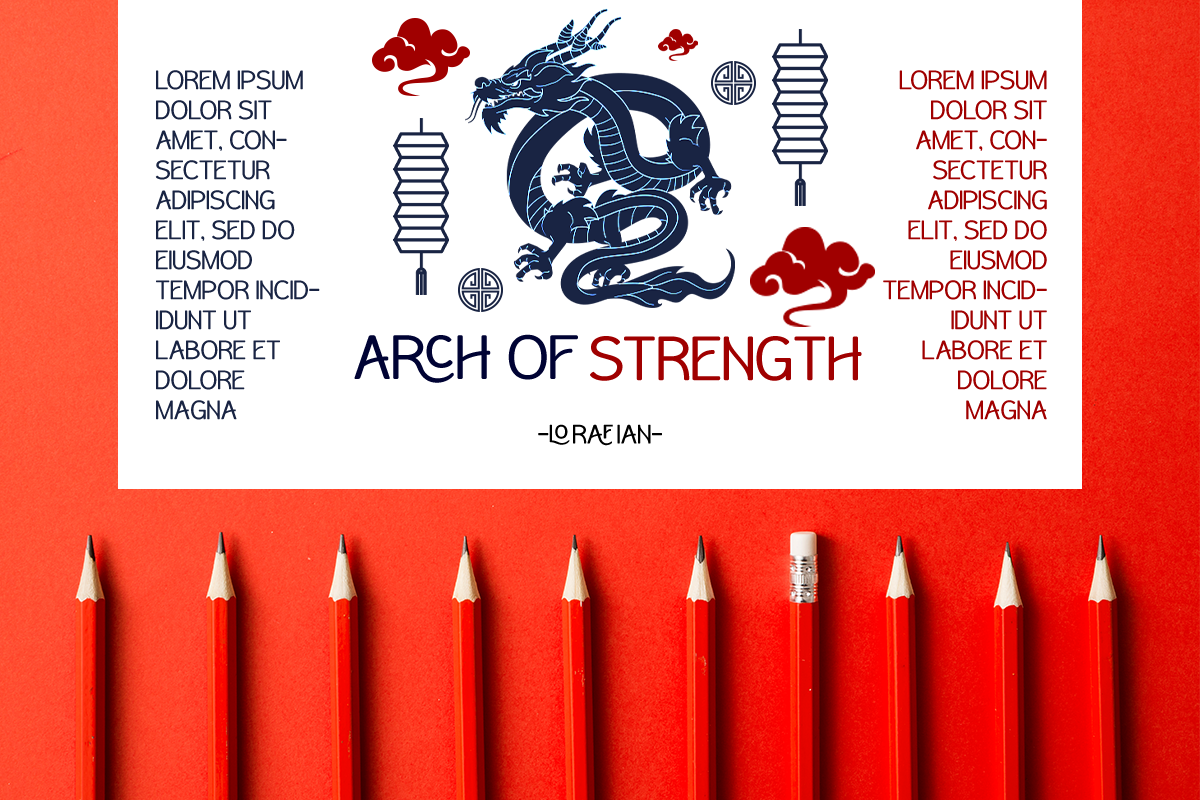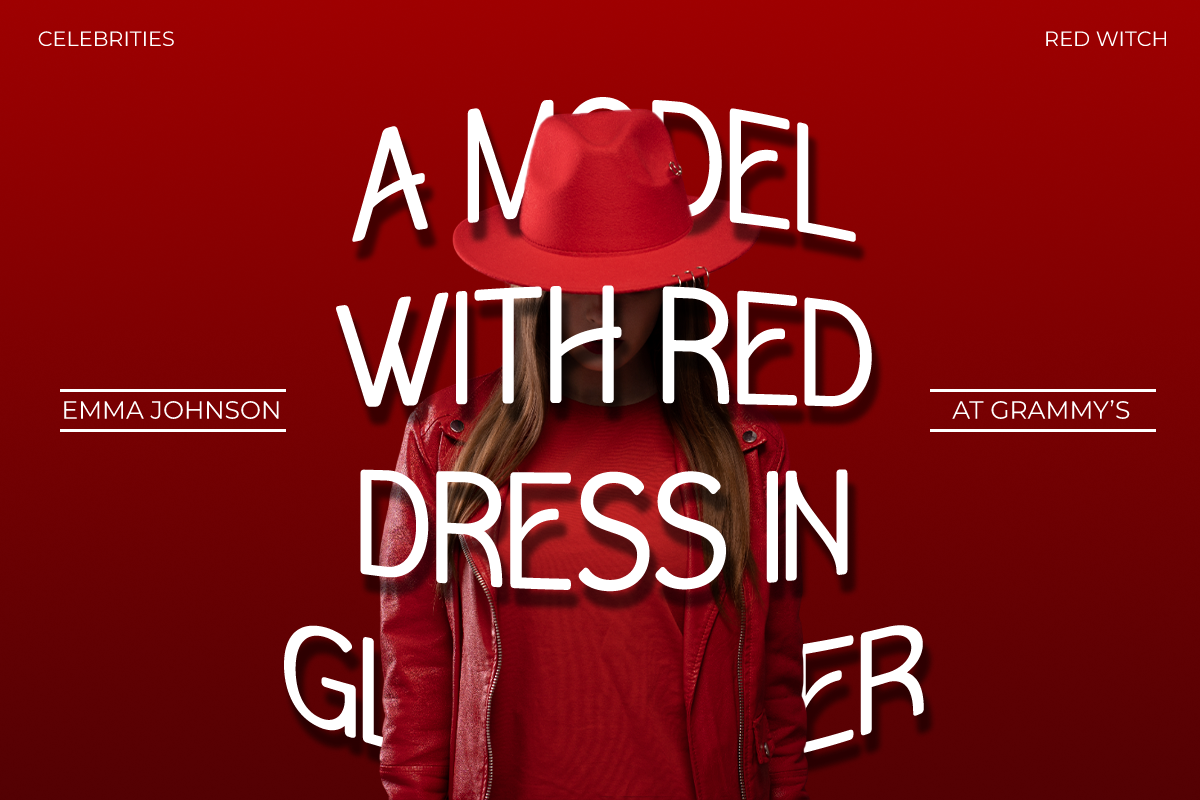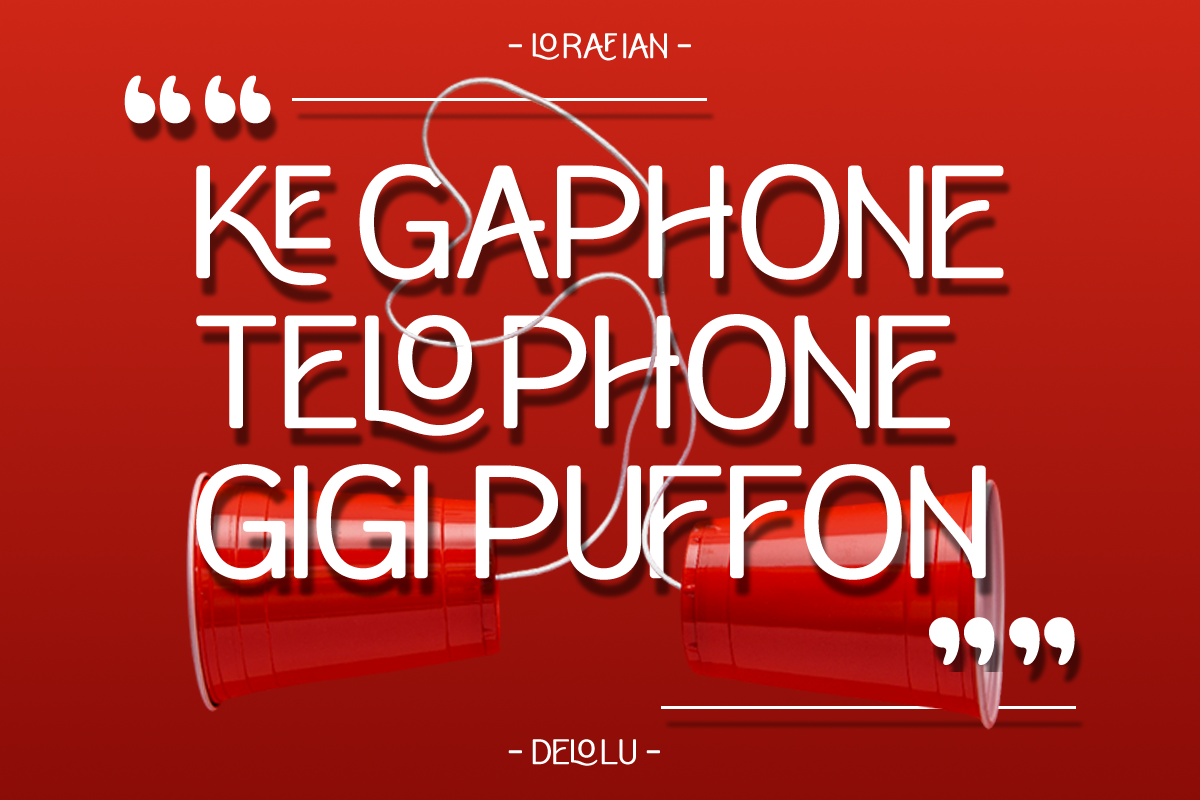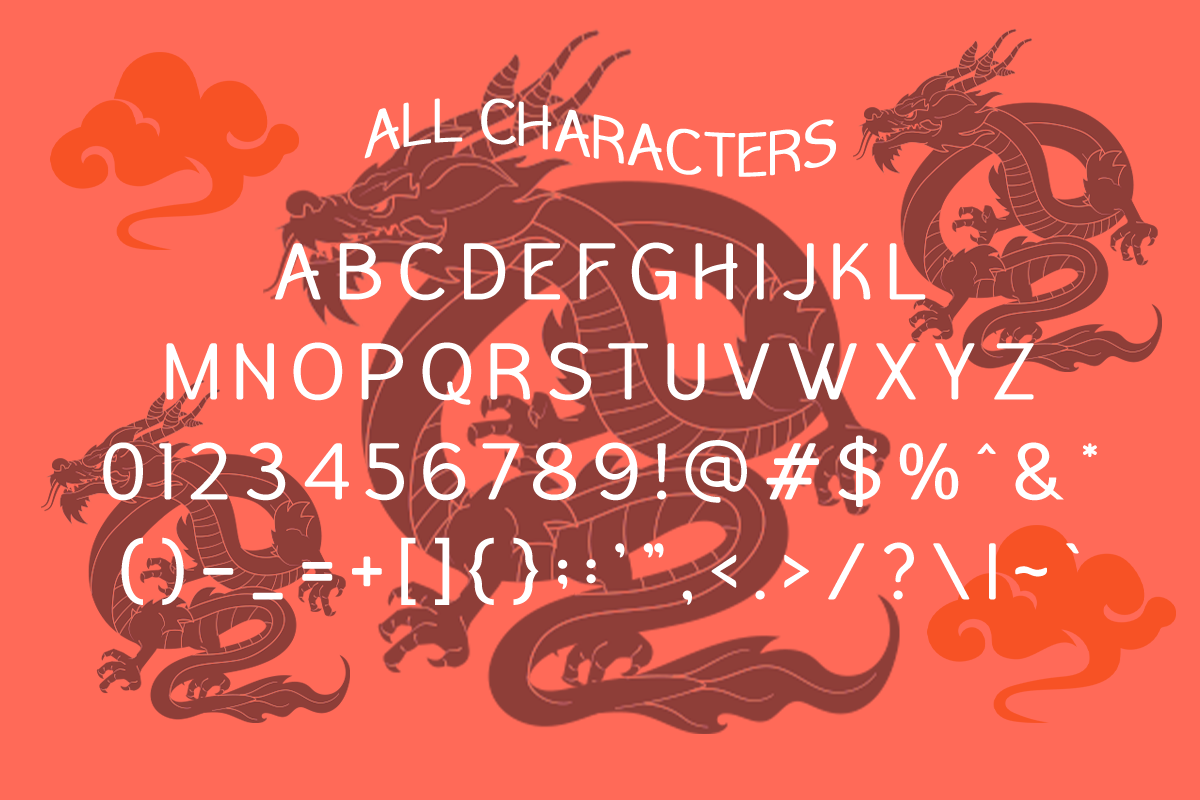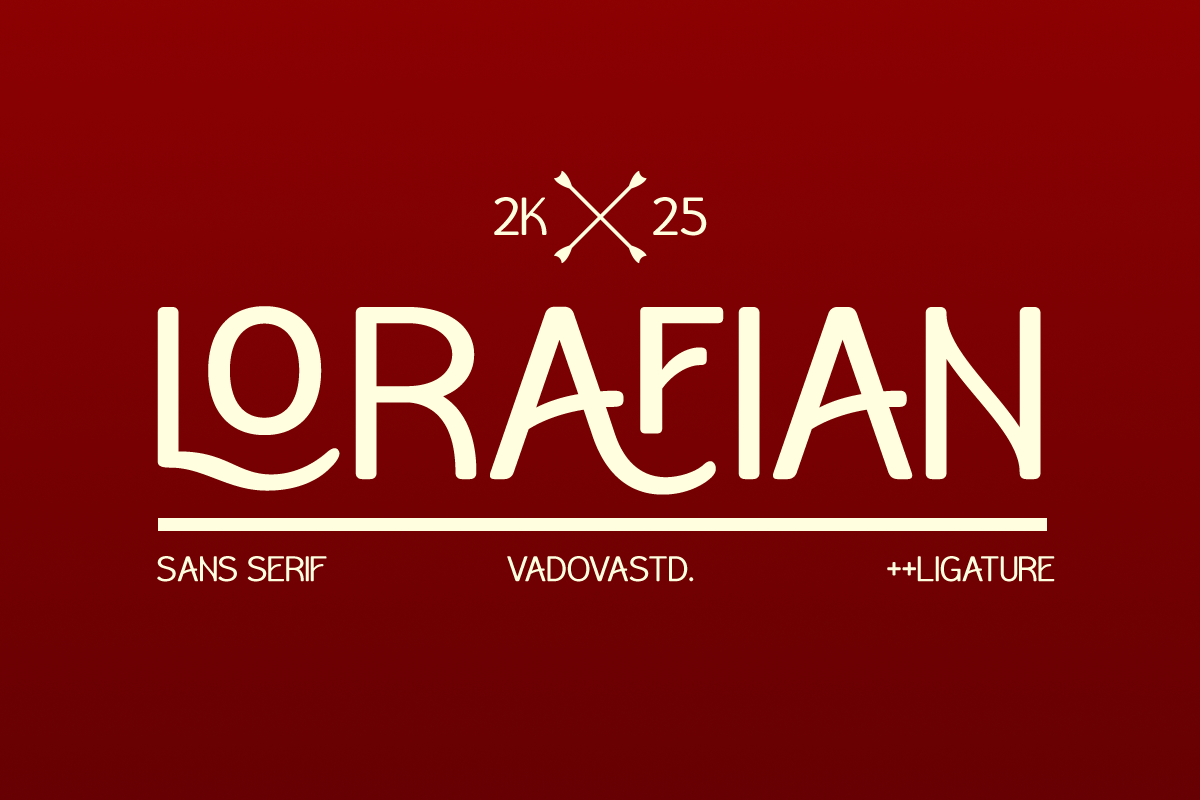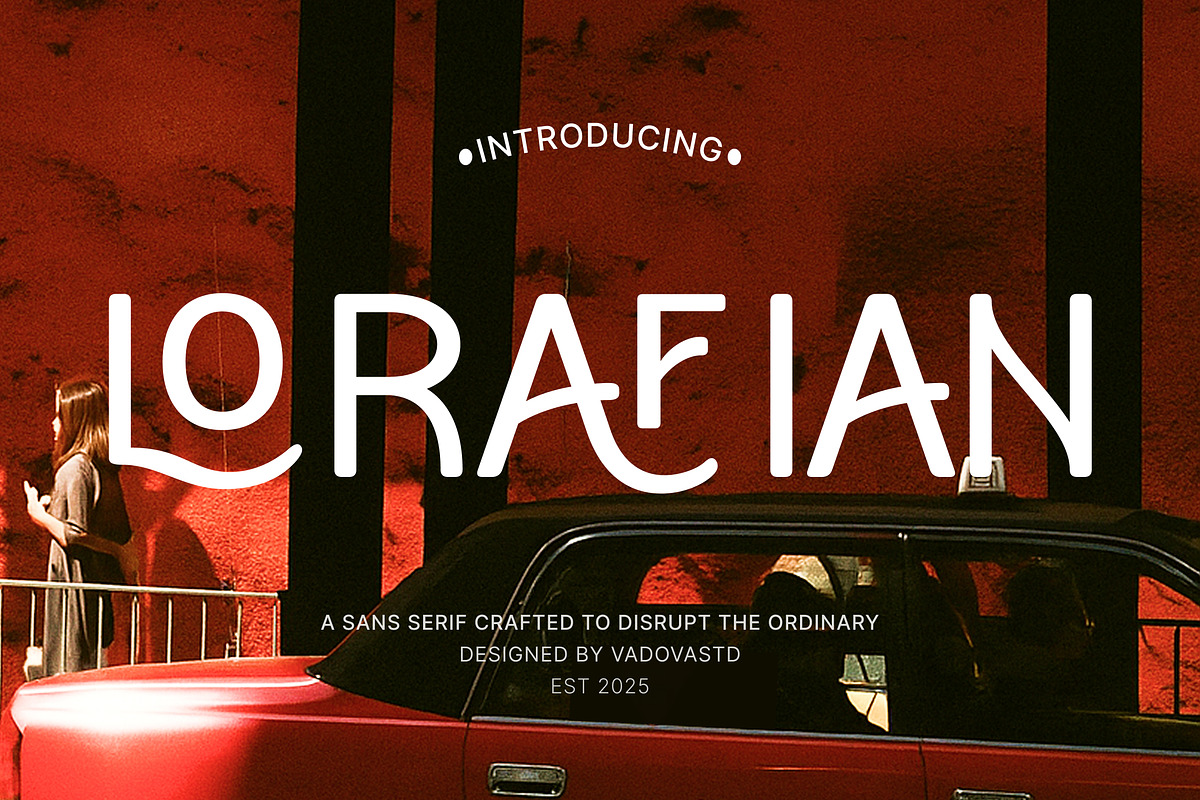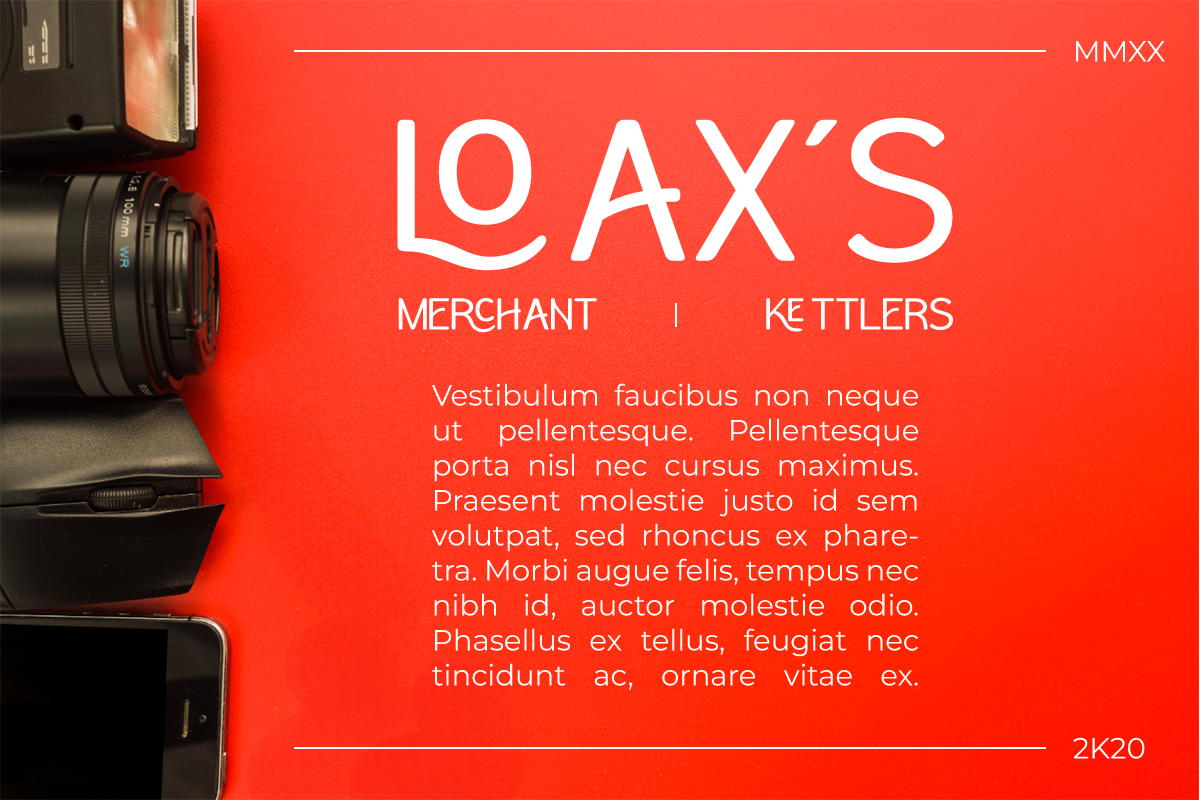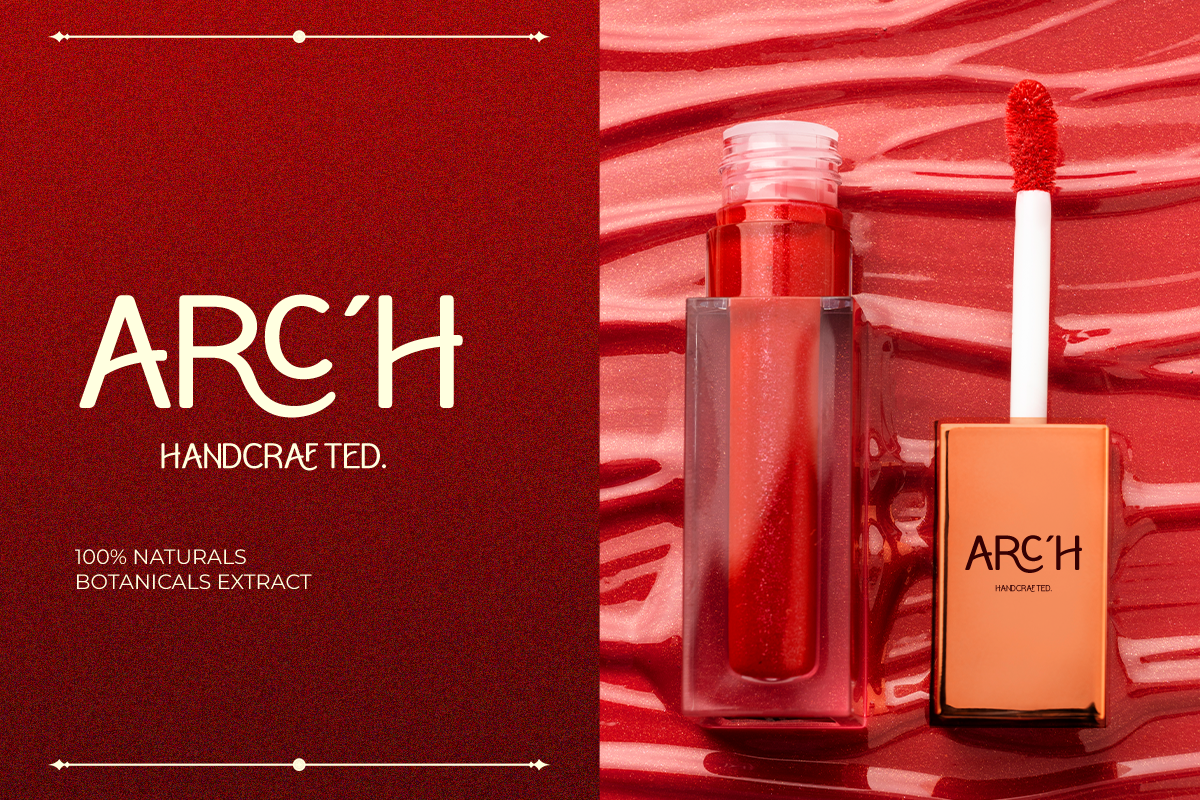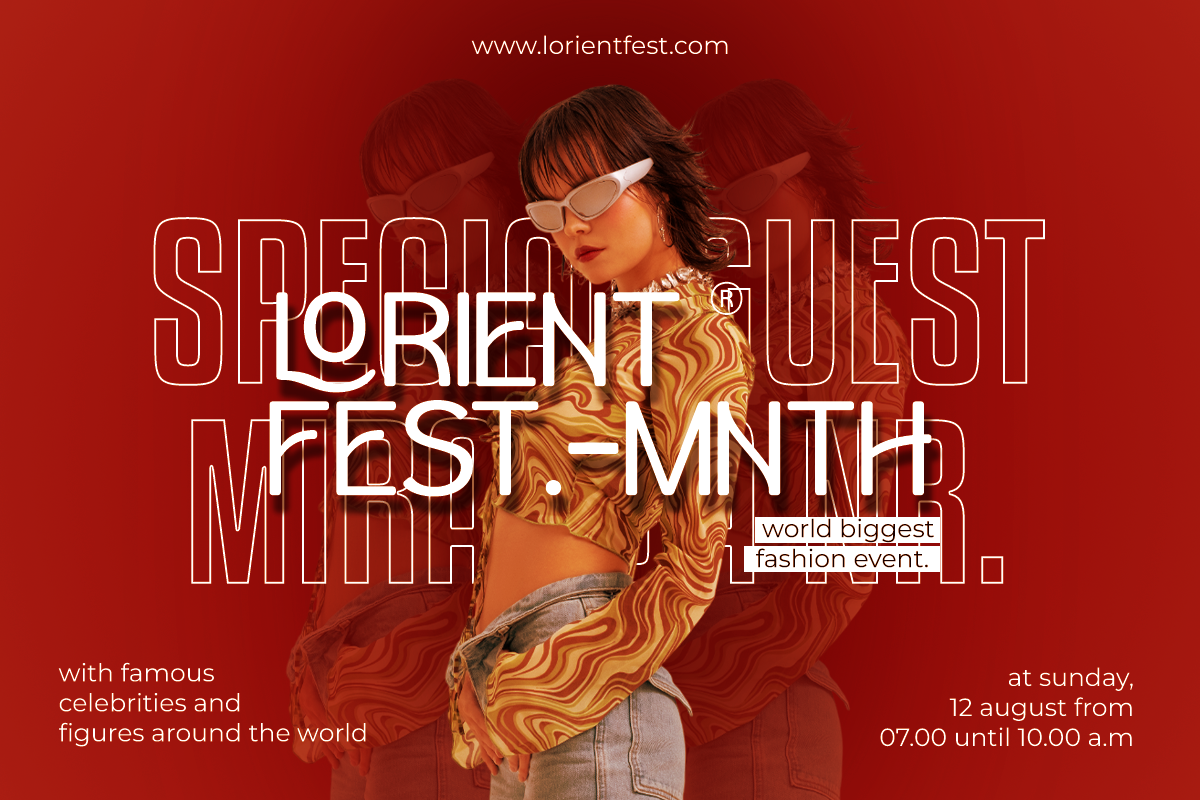
Lorafian – Playful Sans Serif
Lorafian is a playful sans serif font designed to break away from the ordinary. With its quirky curves, modern proportions, and clean sans-serif foundation, it blends contemporary minimalism with a lively, creative edge. Each letterform feels bold yet approachable, making Lorafian a perfect balance between professional and playful typography.
The font is crafted for brands, designers, and creatives who want to stand out with a typeface that feels fresh, modern, and slightly unconventional. From Instagram posts and fashion branding to lifestyle blogs and packaging, Lorafian injects personality into every design it touches. Its sans serif structure ensures readability, while the subtle quirky shapes add just the right amount of uniqueness.
Lorafian is not just a font—it’s an invitation to disrupt monotony and design with character.
Why Designers Love Lorafian
Modern sans serif with playful, creative curves
Distinctive shapes that stand out without losing readability
Perfect blend of professional and fun vibes
Works across digital, print, and branding projects
Adds a unique, refreshing touch to everyday typography
Playful sans serif styling
Best Use Cases
Creative branding & logo design
Social media graphics & Instagram posts
Fashion & lifestyle projects
Packaging & product labels
Editorial headlines & posters
Digital marketing campaigns